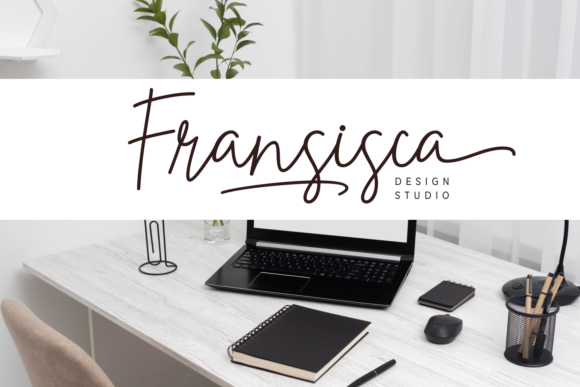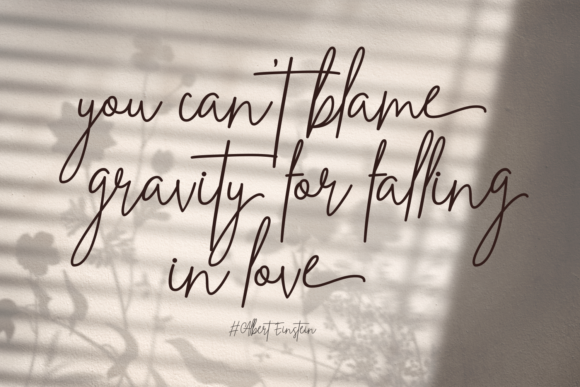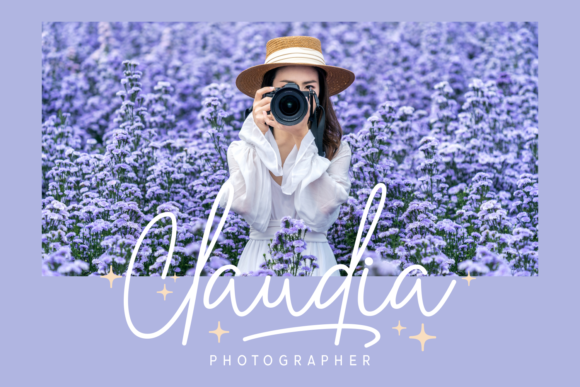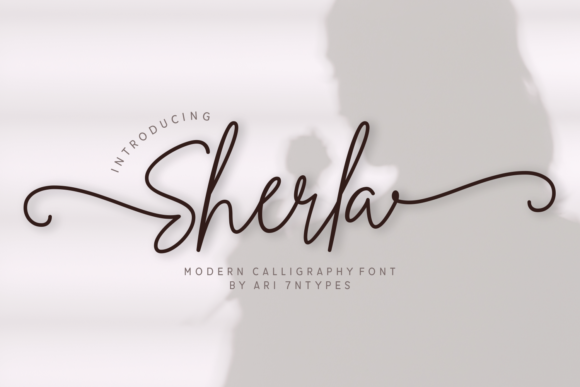
Introduction to Sherla Font
Sherla – an exquisite and incredibly charming script font featuring characters that flow elegantly into each other.
Use this splendid font to make anything more sophisticated and pleasing to the eye This font is PUA encoded, which means you can access all of the glyphs and swashes with ease.
Key Features of Sherla Font
Why Choose Sherla Font?
Sherla Font offers exceptional quality and versatility, making it a valuable addition to your design toolkit. Whether you’re creating for personal projects or commercial use, Sherla Font delivers professional results.